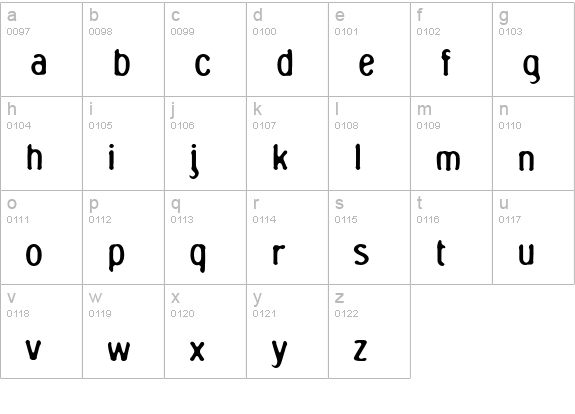
Oculus-BGauge Font Details
Oculus-BGauge font is a sleek and modern typeface that exudes sophistication and elegance. With its clean lines and contemporary design, this font is perfect for a wide range of design projects, from branding to editorial design. The geometric shapes and sharp angles give Oculus-BGauge a distinct look that is both stylish and eye-catching. What makes Oculus-BGauge even more appealing is that it is free to download at FontsMarket.com. This means that you can easily access this stunning font without any cost, making it a valuable addition to your font collection. Whether you are a designer looking to add a touch of sophistication to your projects or a business owner seeking a unique font for your branding, Oculus-BGauge is sure to impress with its modern aesthetic and versatility. Download it today and elevate your designs with this striking typeface.